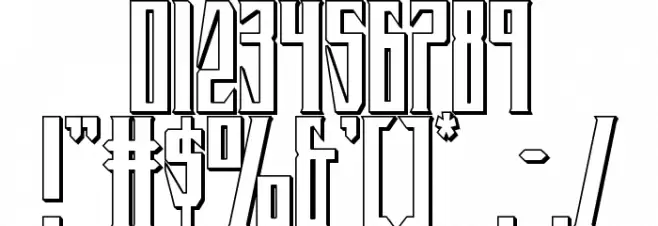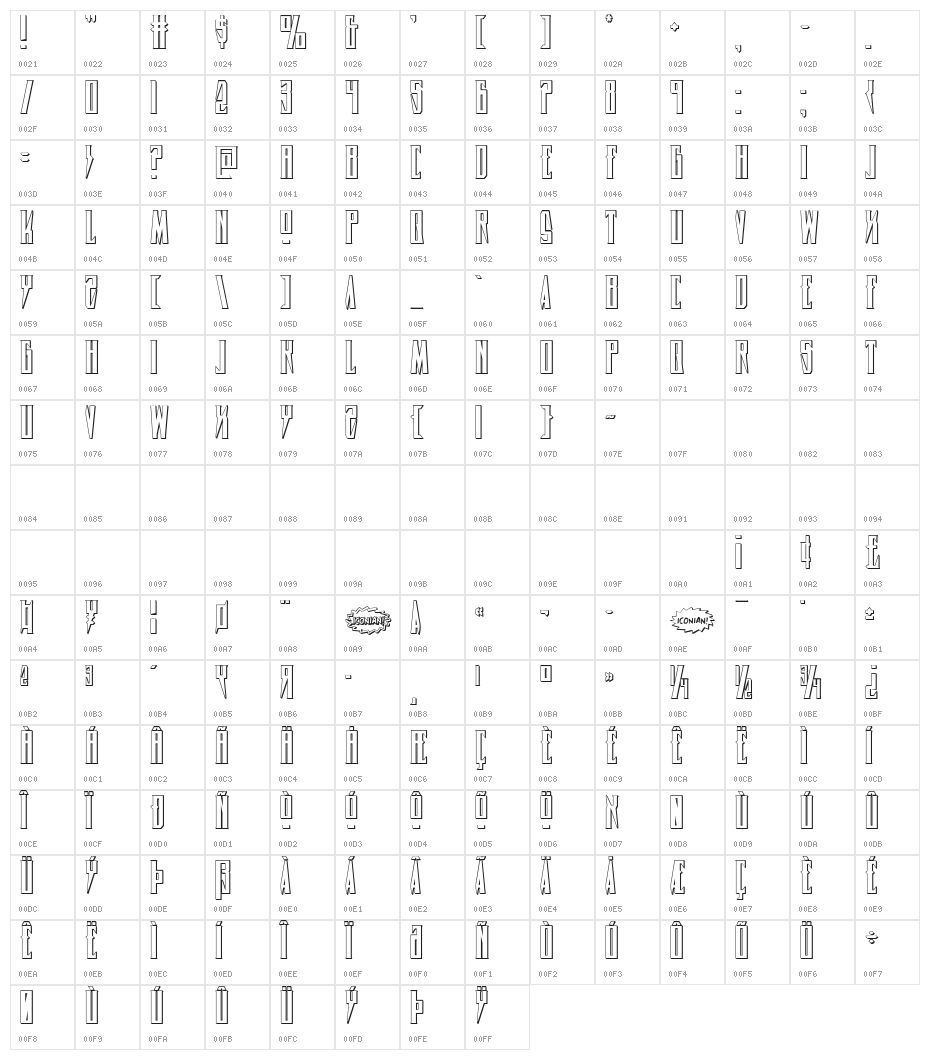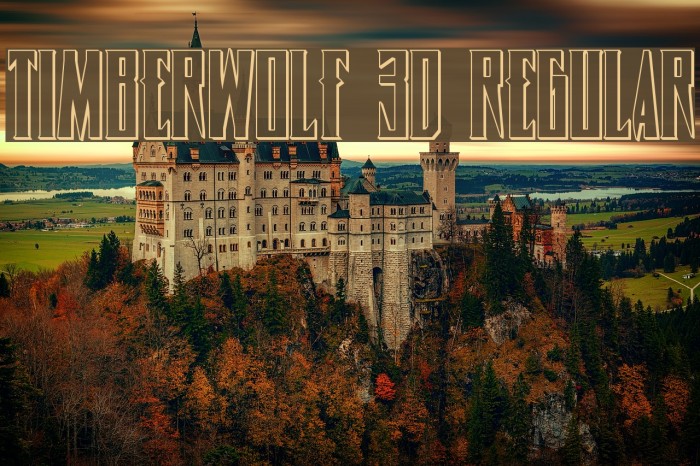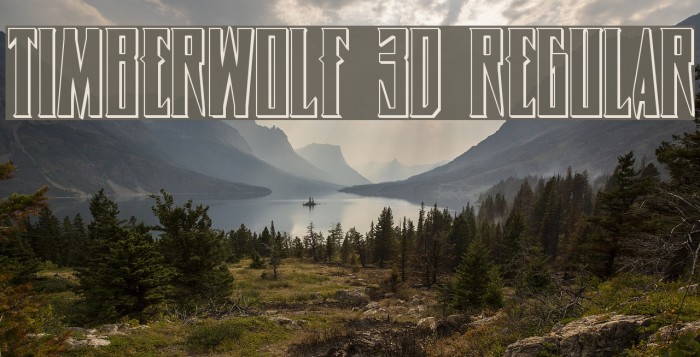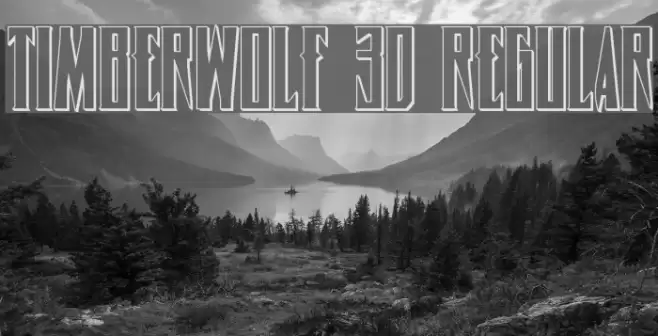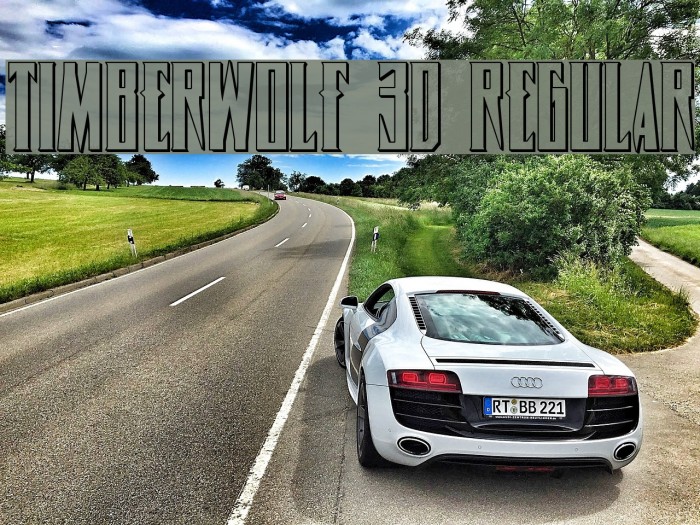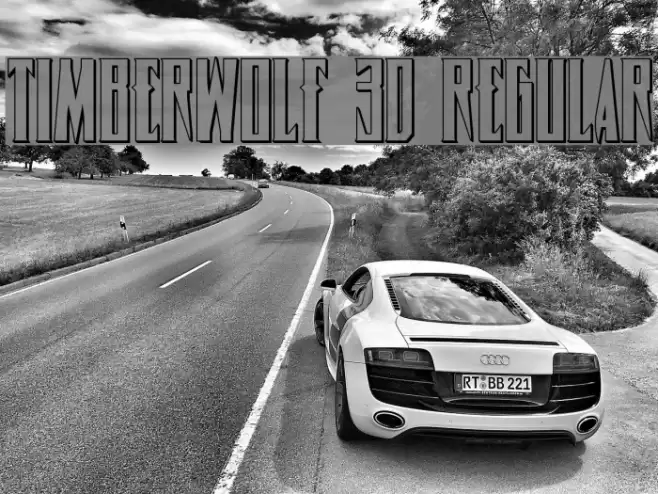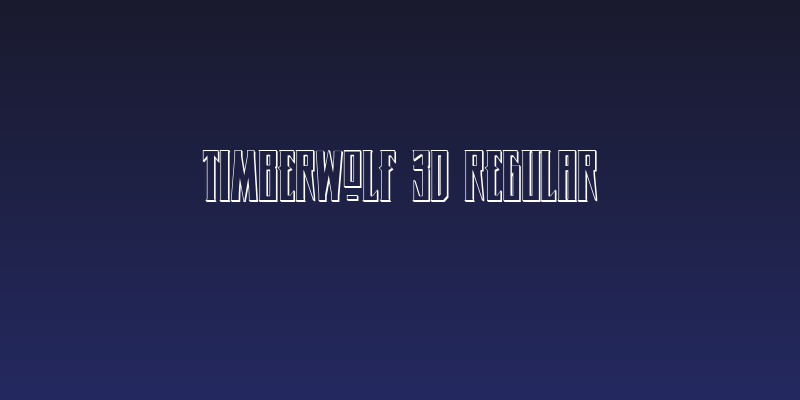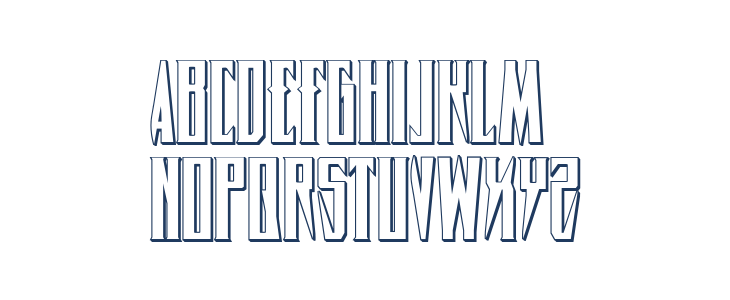
Timberwolf 3D Regular Font
Timberwolf 3D Regular Description
This font features a bold, three-dimensional design with a strong, geometric structure. The letters are characterized by sharp angles and a blocky appearance, giving them a striking and modern look. The 3D effect is achieved through the use of shadowing, which adds depth and dimension to each character. The uppercase and lowercase letters maintain a consistent style, with the numbers and special characters following suit. This font is ideal for creating eye-catching headlines or logos that require a bold statement.